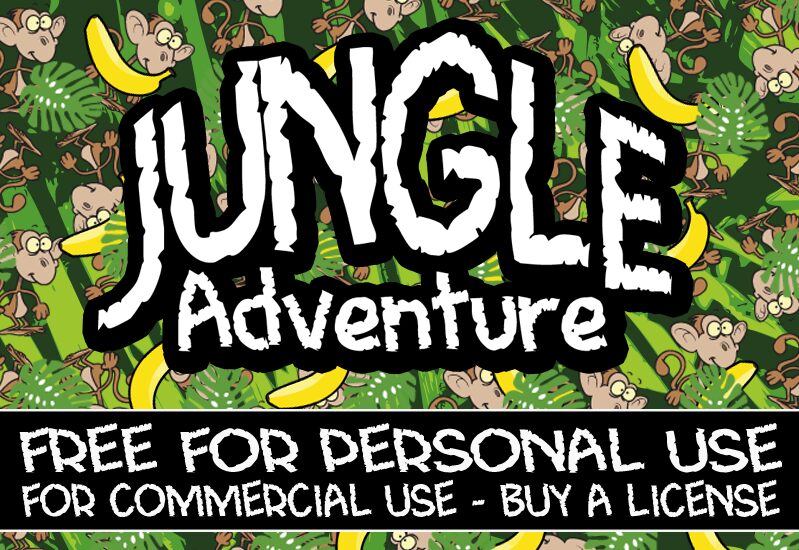
CF Jungle Adventure by CloutierFontes is a free eroded comic display font with the rough vigor of hand-cut lettering. Its broad irregular capitals have ragged edges and abrupt notches that make each stroke look chipped or torn. The shapes stay loose and lively.
Adventure game titles are its clearest fit because the battered forms suggest improvised signs and unruly terrain. The same rough humor suits children's posters, outdoor event graphics, and playful merchandise. In comic publishing, the lettering can turn a heading into part of the illustrated setting.
CF Jungle Adventure Regular is a font by CloutierFontes, designed by Steve Cloutier in 2013.